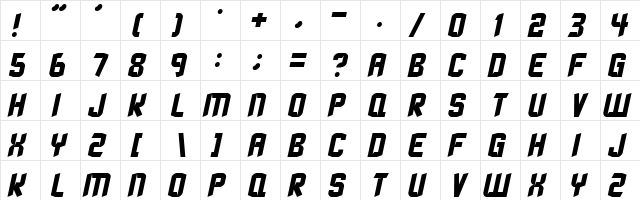
StrangePhenomena Normal Regular Font Preview
StrangePhenomena Normal Regular
Design Context for StrangePhenomena Normal Typeface
StrangePhenomena Normal is a composed and adaptable typeface that performs quietly and consistently across a wide range of design contexts.